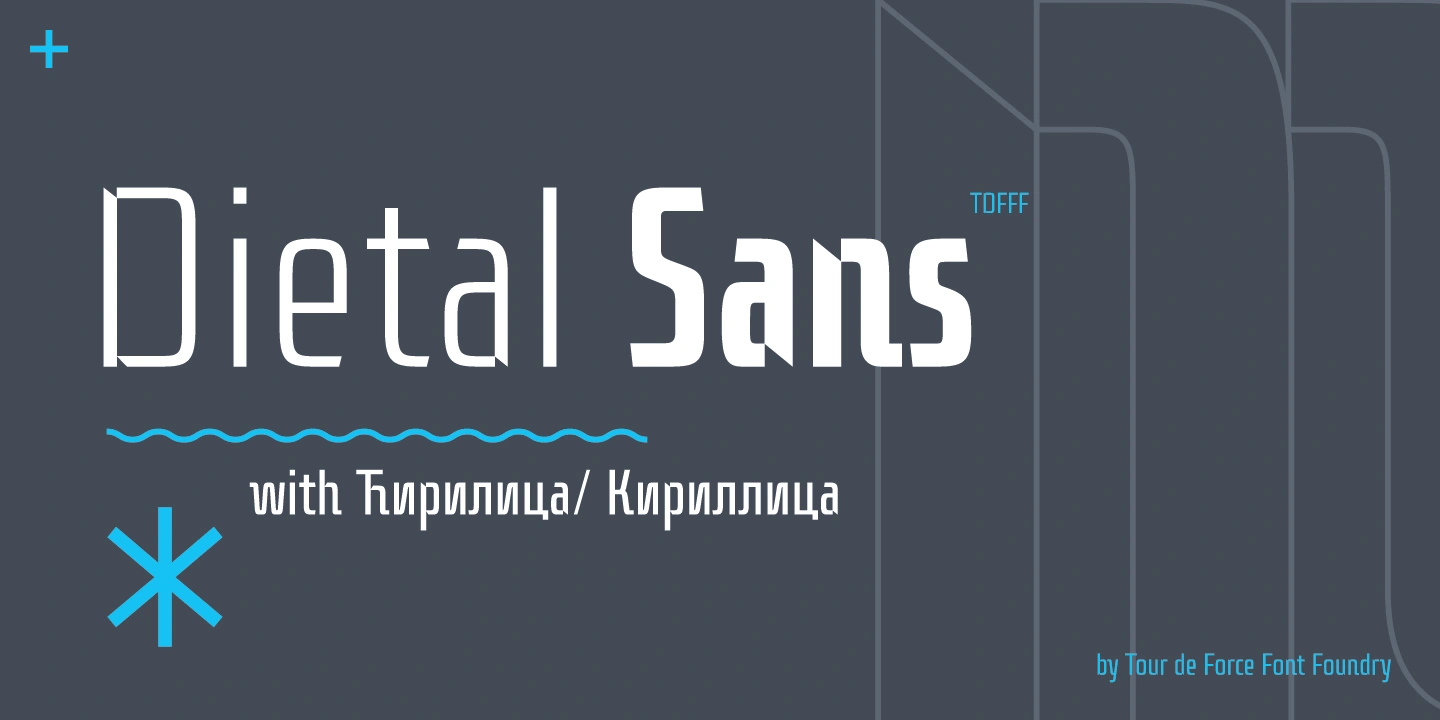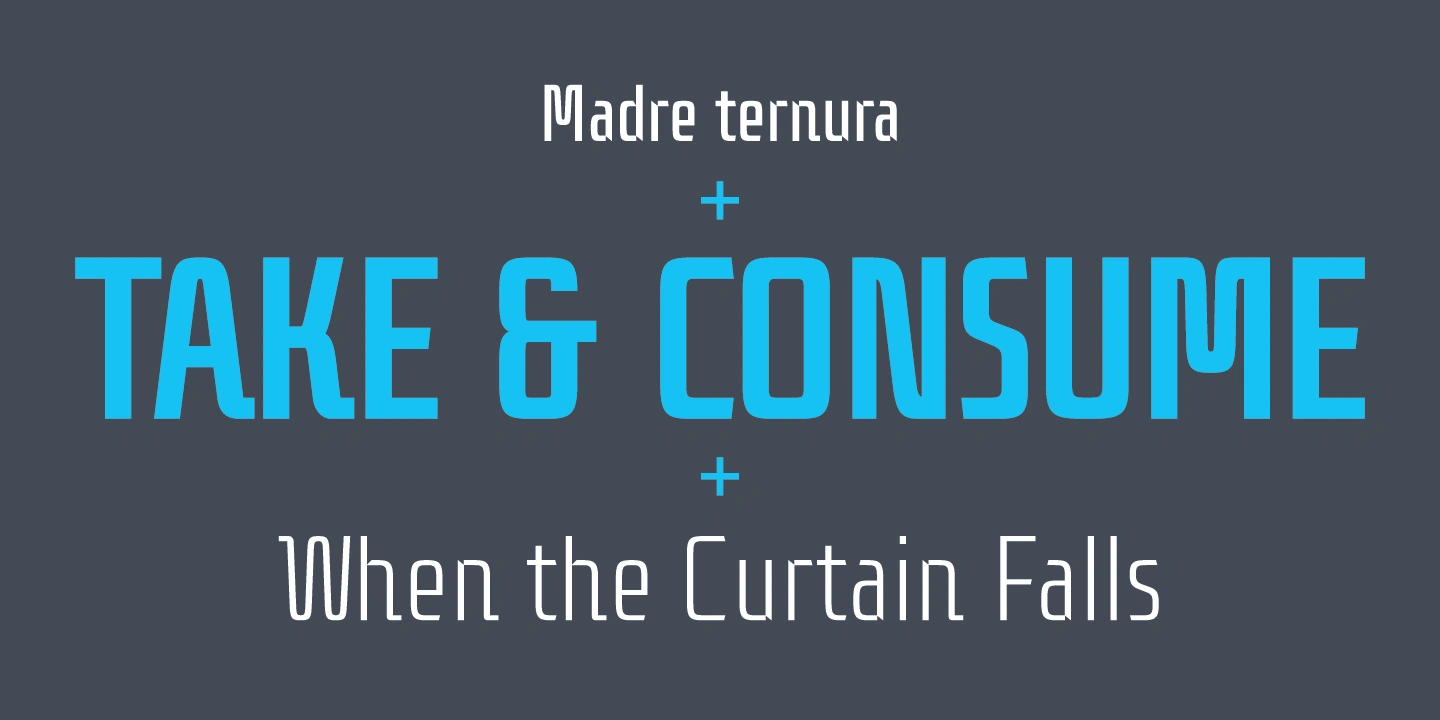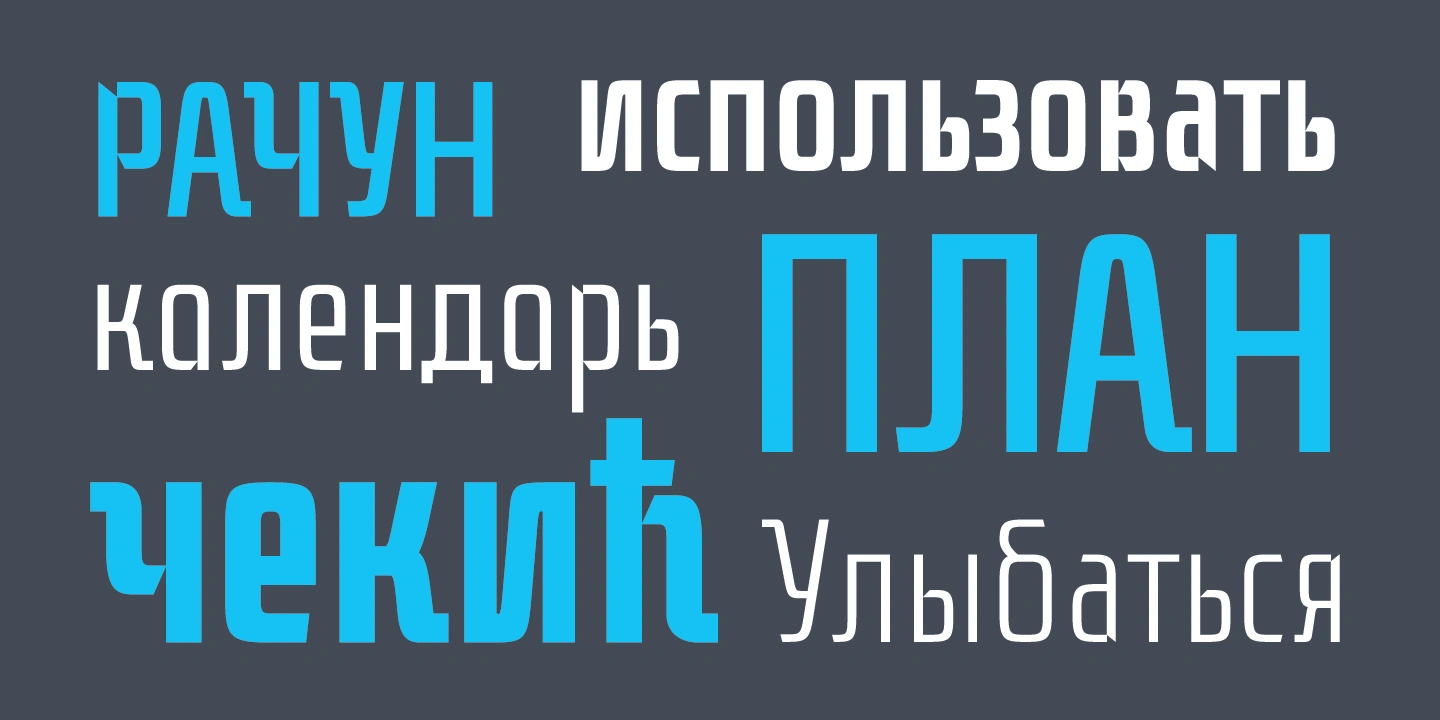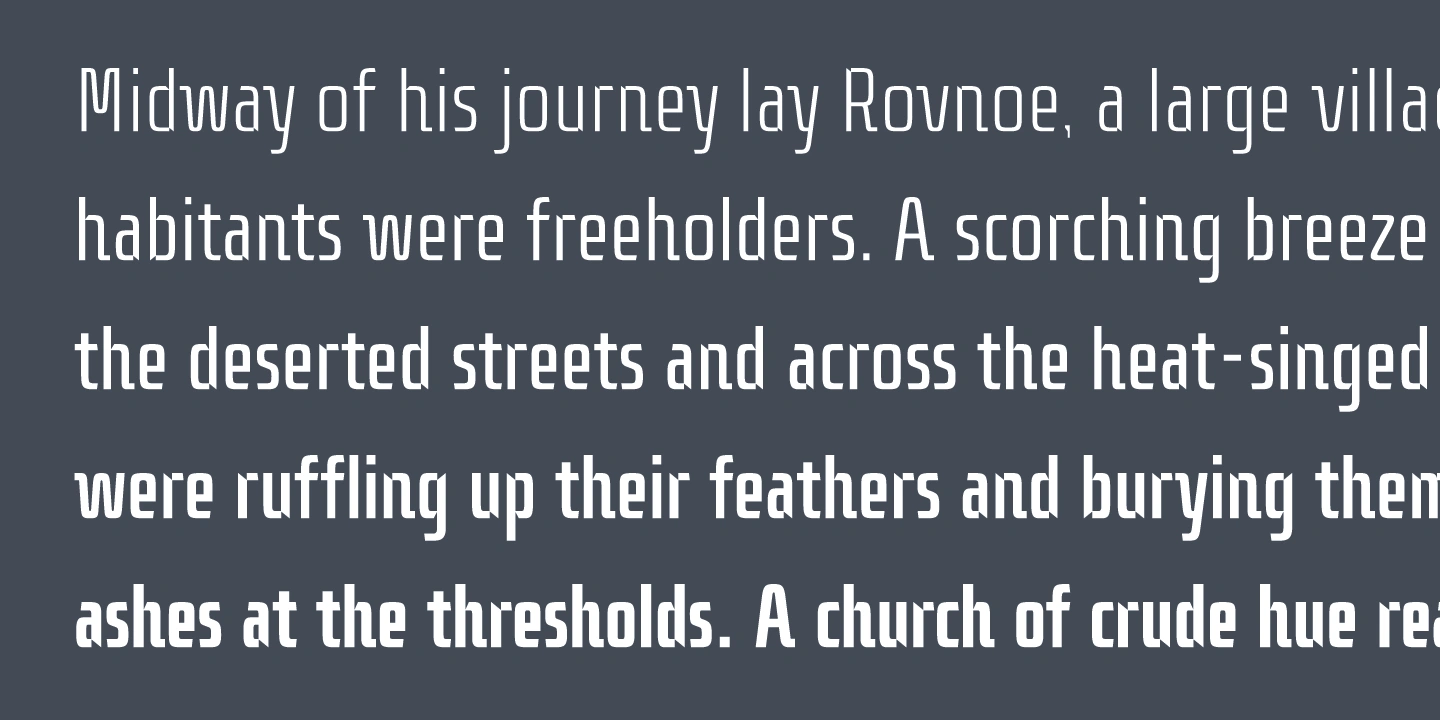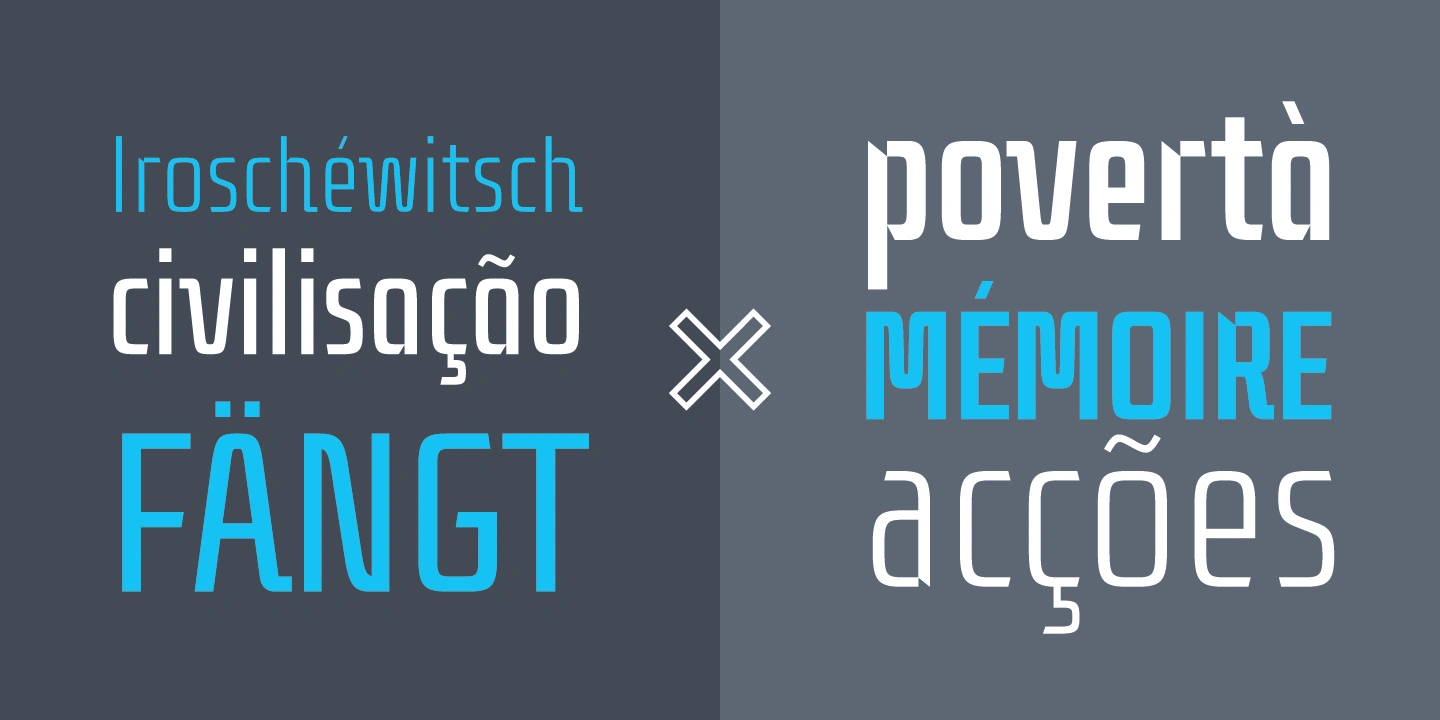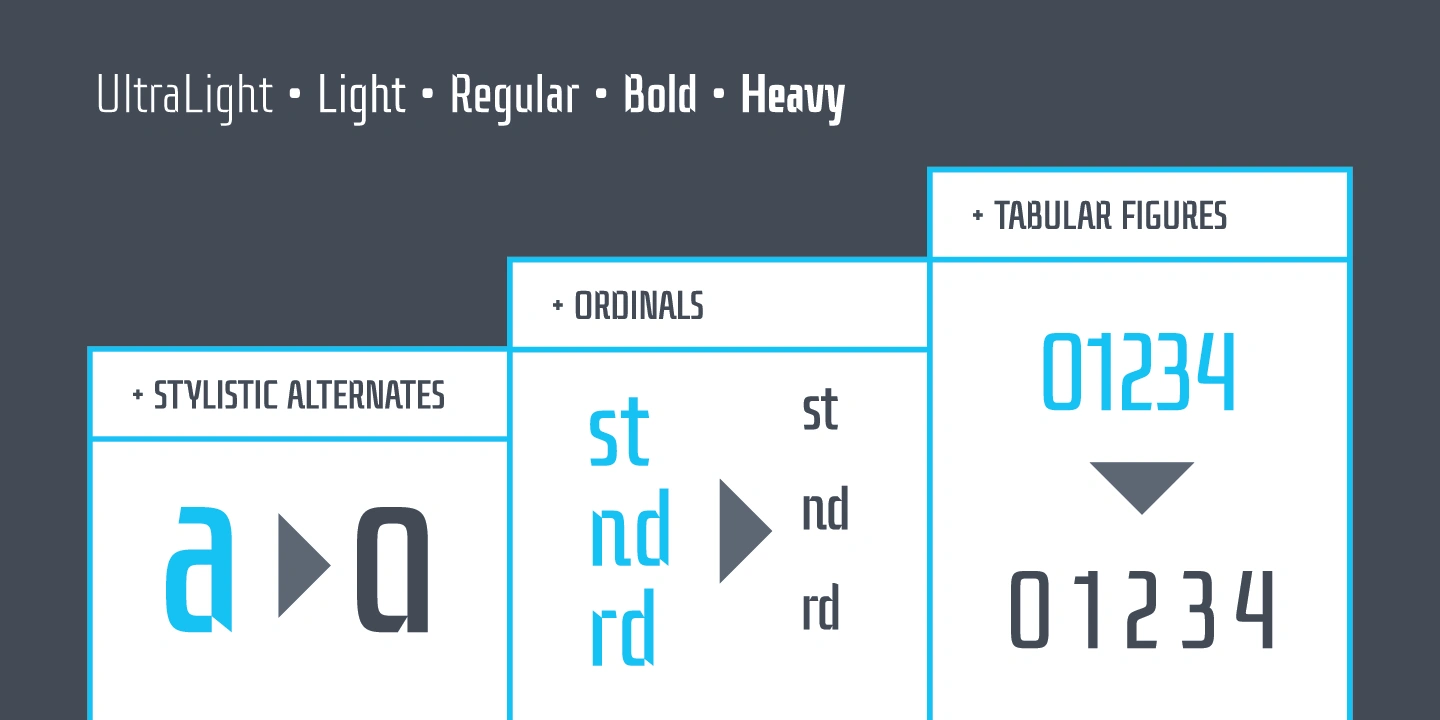
Dietal Sans is a companion to the Dietal slab serif family.
Dietal Sans is a companion to the Dietal slab serif family. It is a condensed sans serif family that comes in 5 weights. Dietal Sans coquettes with different type categories from sans and slab to calligraphy, western, pixel and display elements.
Contains Stylistic Alternates, Ordinals and Tabular Figures as Open Type Features in Extended Latin and Cyrillic character set.